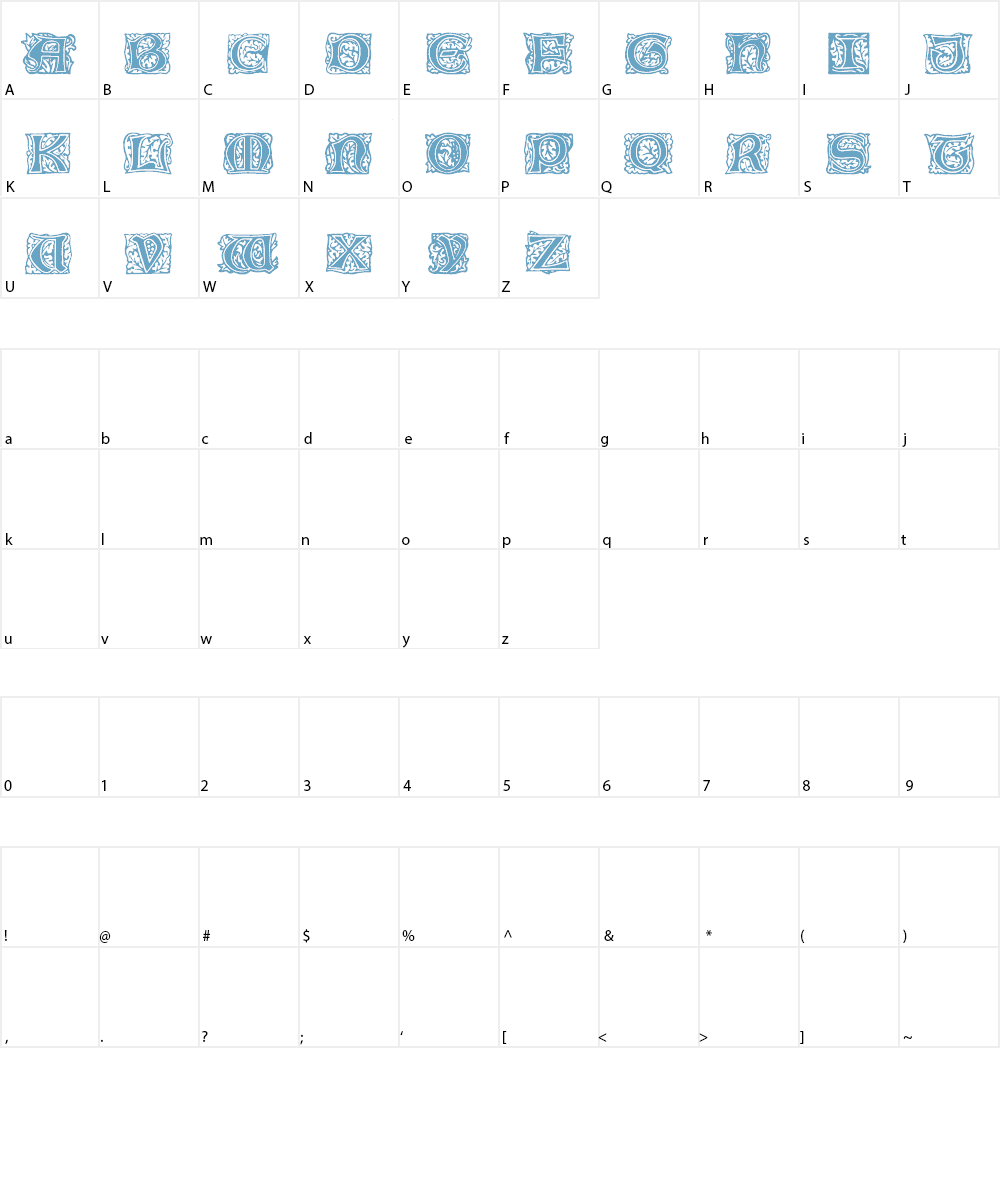
A font I made to hold initial caps I'm using for an illustrated Bible. It ONLY has 26 capital letters. No lowercase letters, no numbers, no punctuation marks.